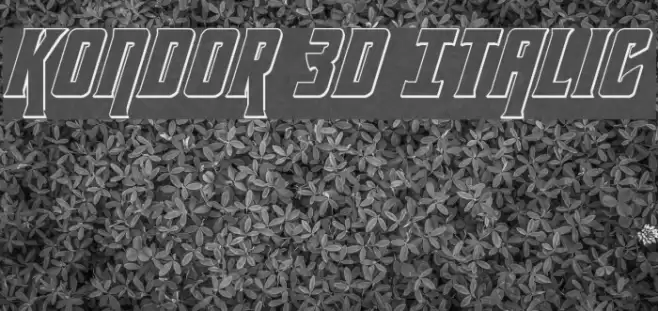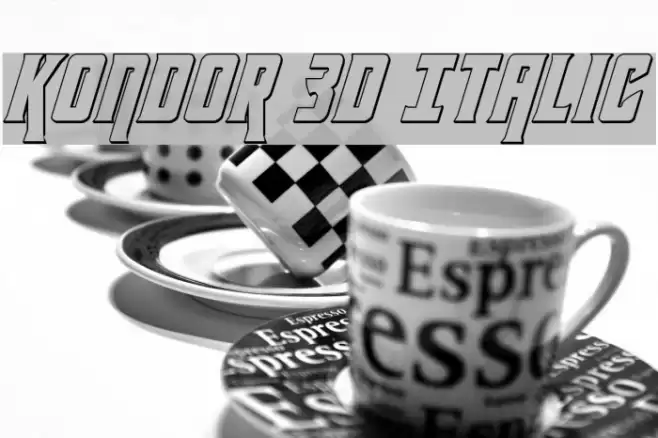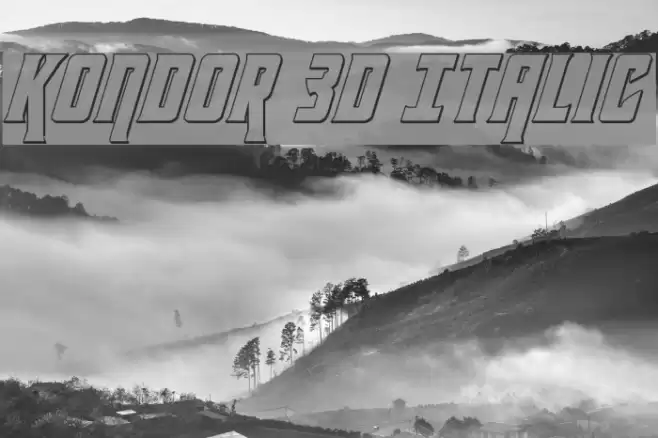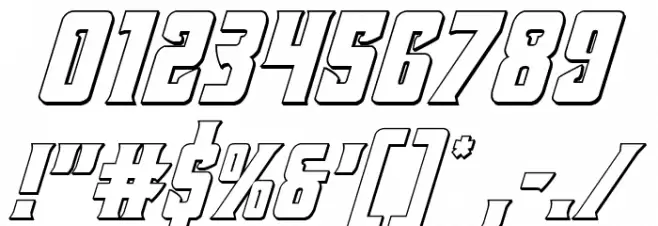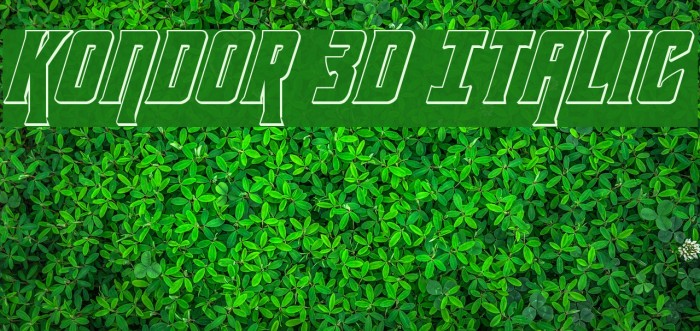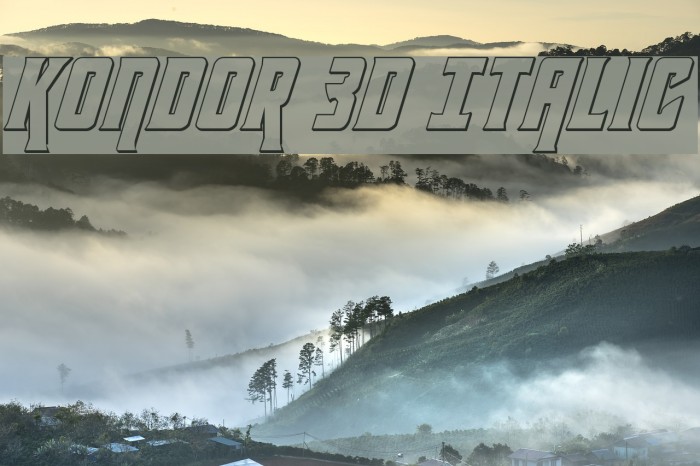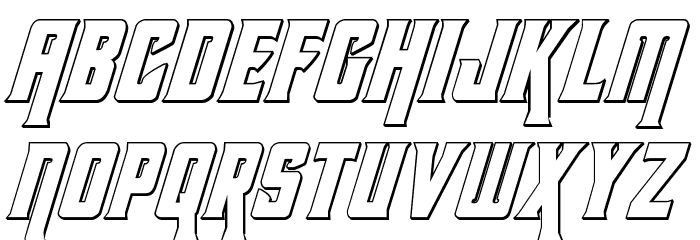
Kondor 3D Italic
This font features a bold, dynamic 3D effect with italicized characters, creating a sense of movement and depth. The letters are outlined with a shadow that enhances the three-dimensional appearance, making it stand out prominently. The angular and geometric design of the characters gives it a modern and futuristic feel. The uppercase and lowercase letters maintain a consistent style, with sharp edges and clean lines. The numbers and special characters are designed to match the overall aesthetic, ensuring uniformity across all glyphs. This font is ideal for projects that require a strong visual impact.
A bold, 3D italic font with a modern, dynamic style.
- Proposed Projects: Ideal for posters, video game titles, branding, and any project needing a futuristic, impactful look.
- Contrast: High